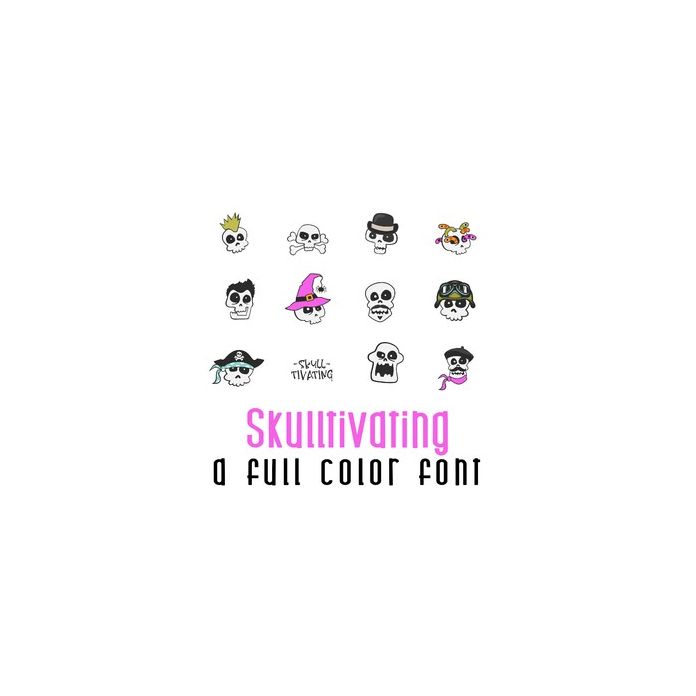
This adorable full-color doodlebat font features 26 fun skulls perfect for Halloween or any occasion. Use for cards, crafts, parties, gifts, decor, scrapbook pages, planner stickers and more!. Perfect for cards, crafts, gifts, decor, scrapbook pages, planner stickers, and more!